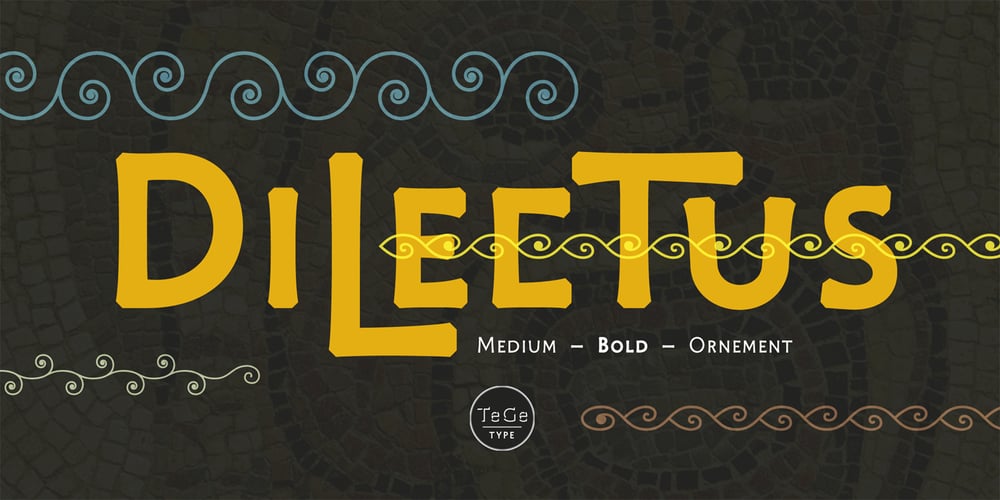
Dilectus Font Family was designed by Thierry Gouttenègre and published by TeGeType. Dilectus contains 3 styles and family package options. Inspired by Paleochristian engravings and writings, this font has a timeless aspect while keeping a real monumentality. It was originally designed to serve as a visual identity for a group of museums.